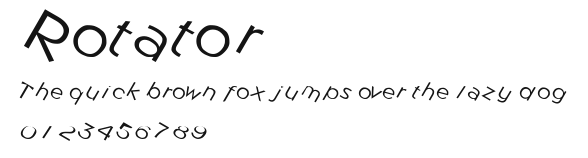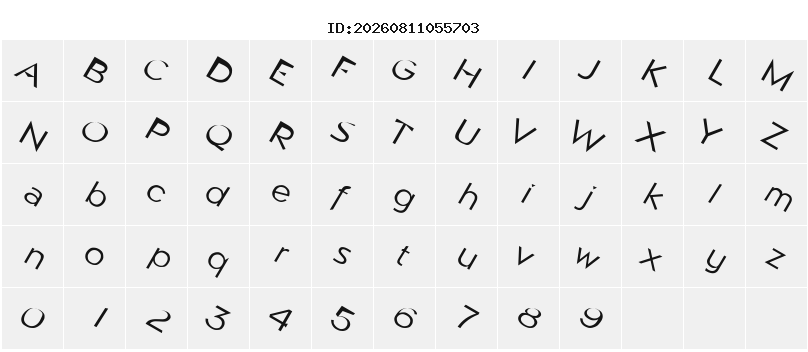
• Font Name: Rotator
• Full Font Name: Rotator
Rotator.ttf is a modern, elegant sans-serif font designed for ultimate readability and visual harmony. Perfect for branding, headlines, web design, and print materials.